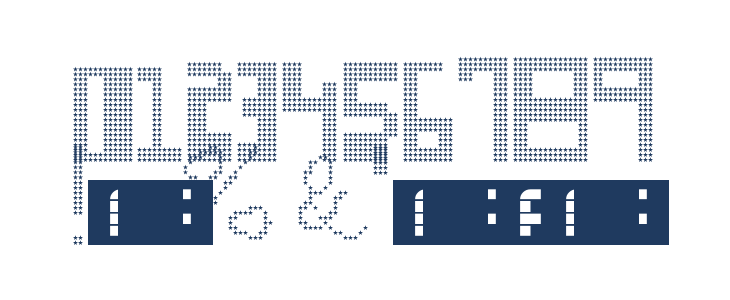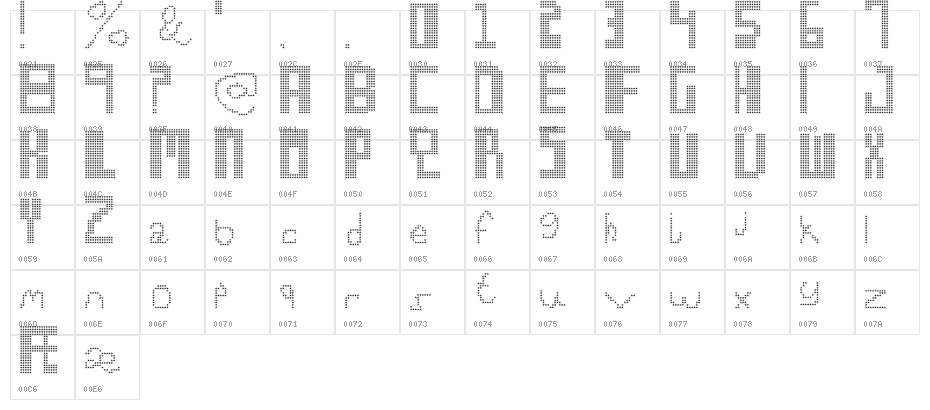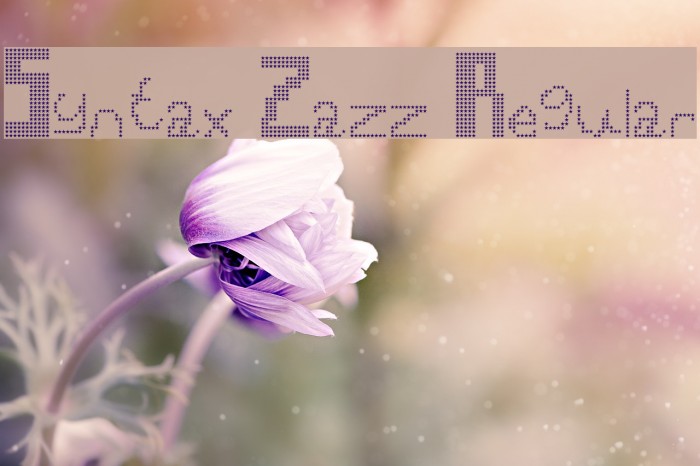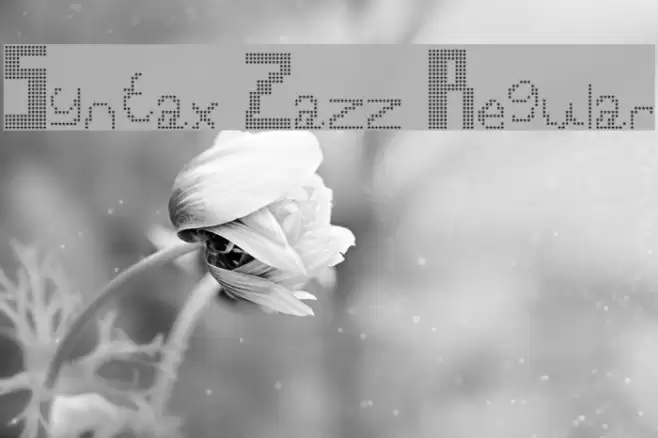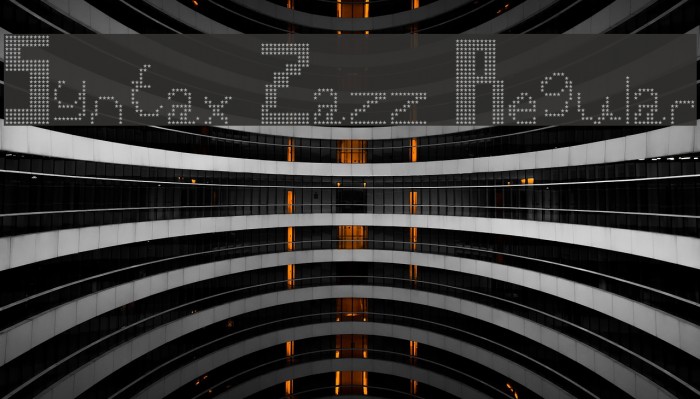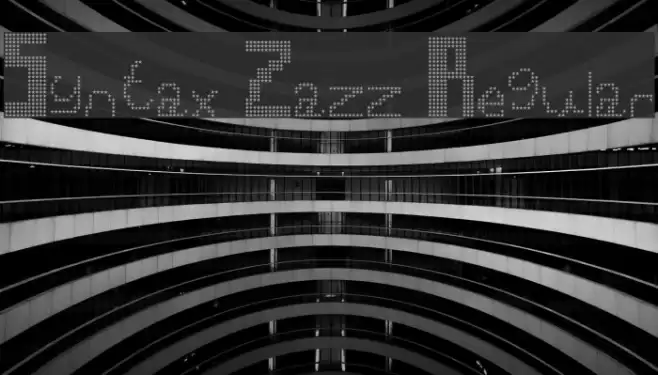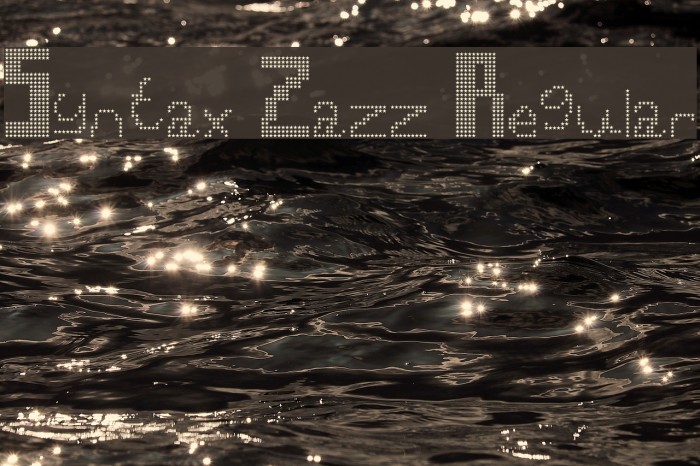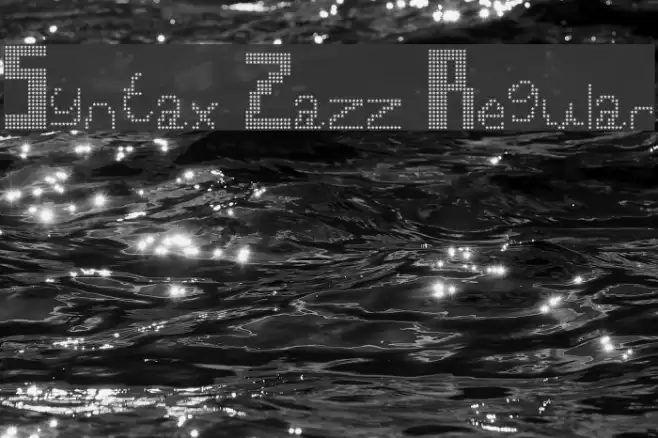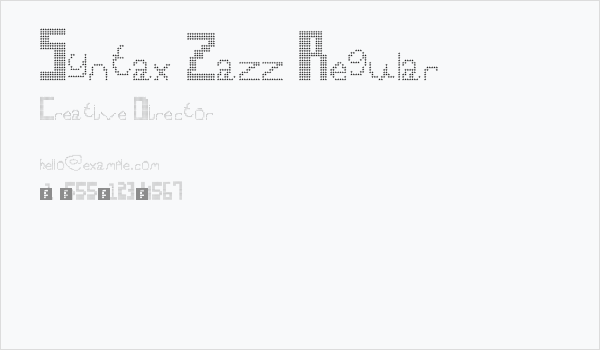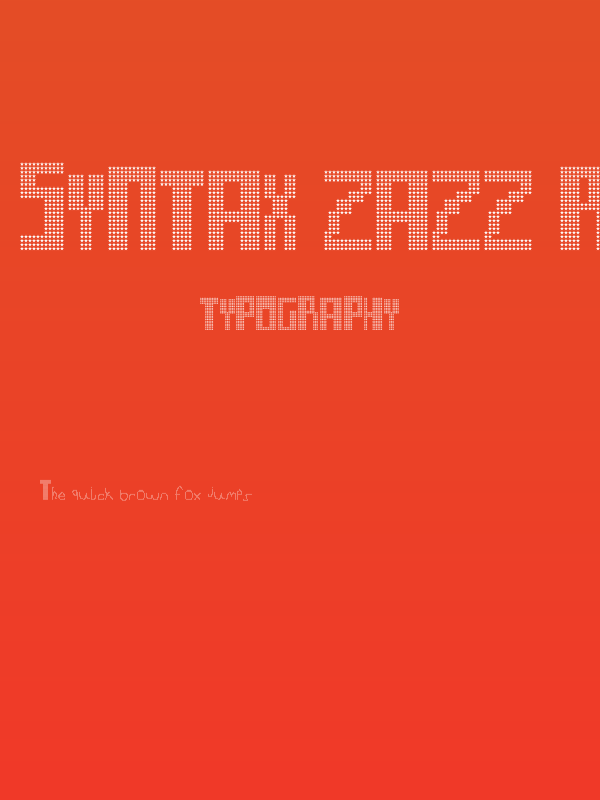
Syntax Zazz Regular Font
Syntax Zazz Regular Description
This font features a unique and playful design composed entirely of small star shapes, creating a dotted effect. The uppercase letters are bold and structured, while the lowercase letters maintain a consistent style with a slightly more whimsical touch. Numbers and special characters follow the same star pattern, ensuring uniformity across all elements. The font's distinct style makes it stand out, offering a decorative and eye-catching appearance. Its geometric and modern aesthetic is suitable for creative projects that require a touch of fun and originality.
| Proposed Projects | Ideal for party invitations, children's book covers, event posters, and any project requiring a fun, decorative touch. |